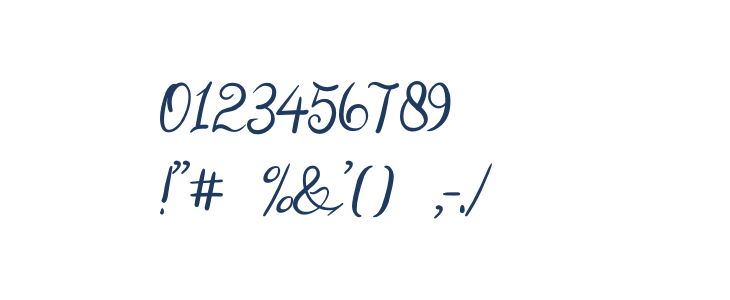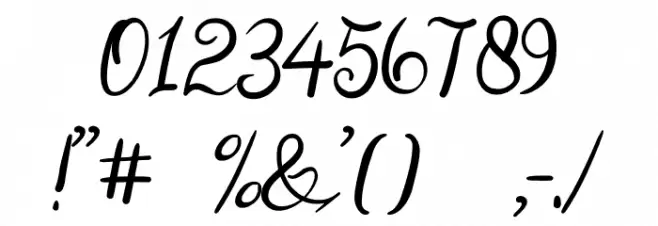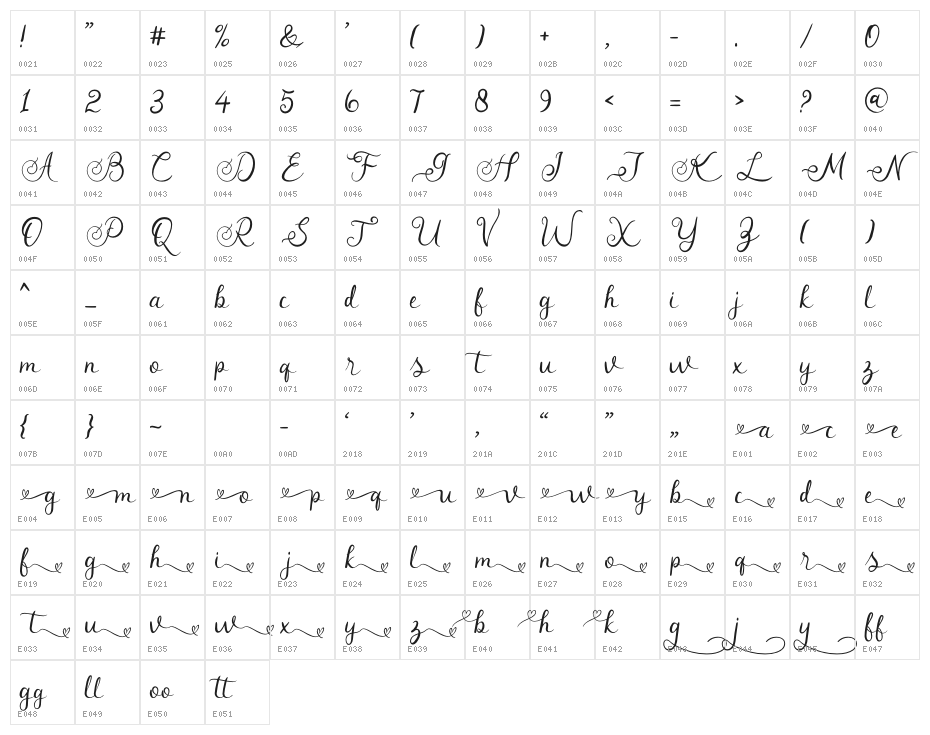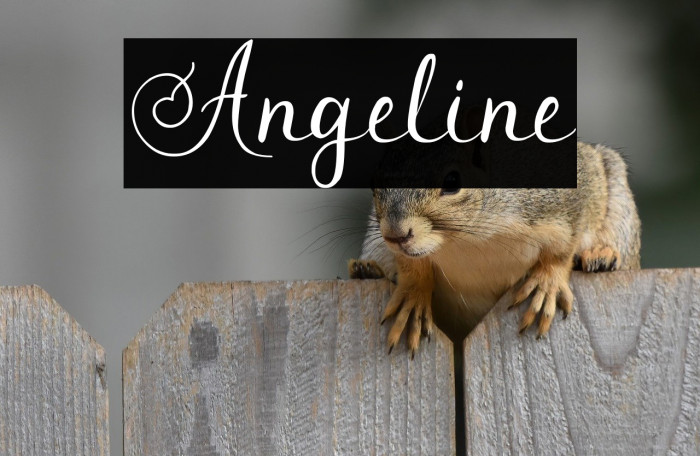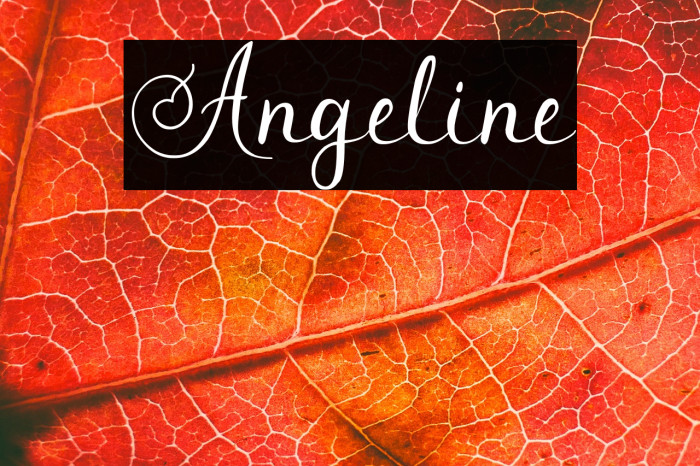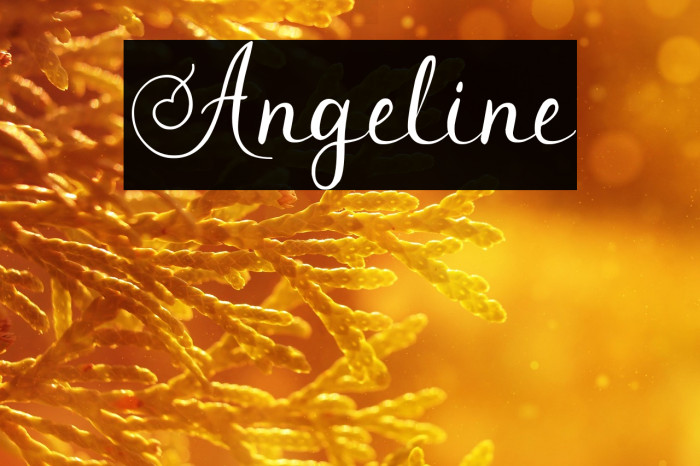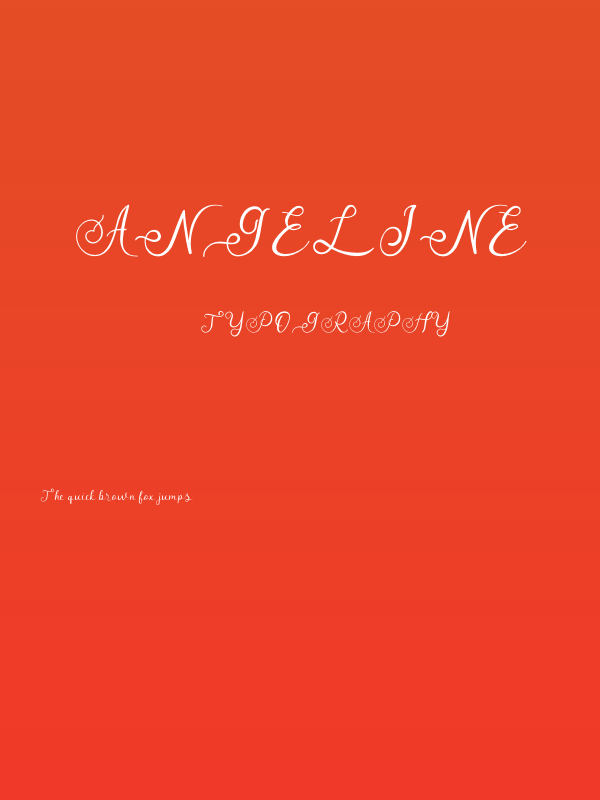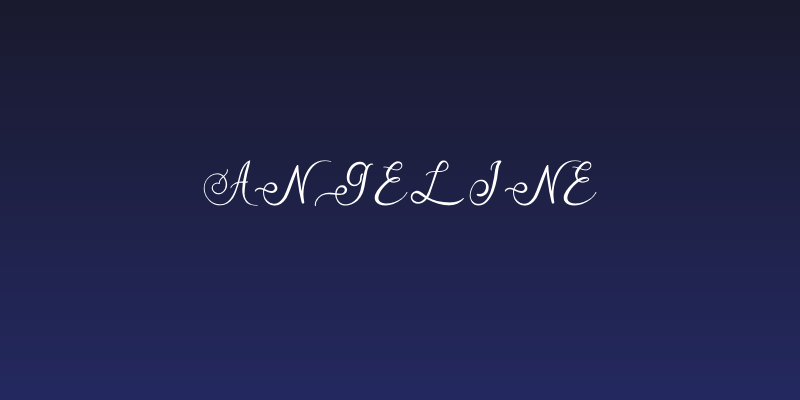
Angeline Font
Angeline Description
This elegant script font features a flowing, cursive style with delicate loops and swirls, giving it a sophisticated and graceful appearance. The uppercase letters are adorned with intricate flourishes, while the lowercase letters maintain a smooth, connected flow. The numerals are consistent with the script style, offering a cohesive look throughout. The special characters are designed to complement the overall aesthetic, making this font ideal for projects that require a touch of elegance and refinement.